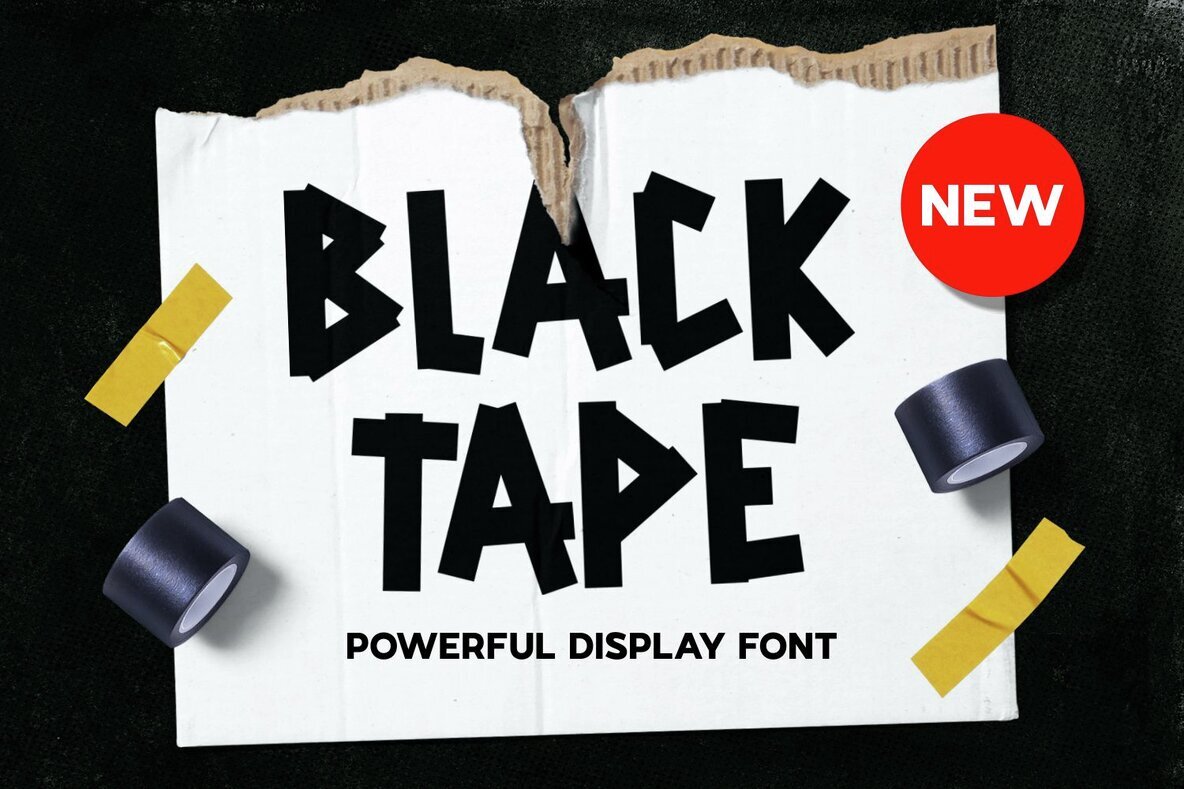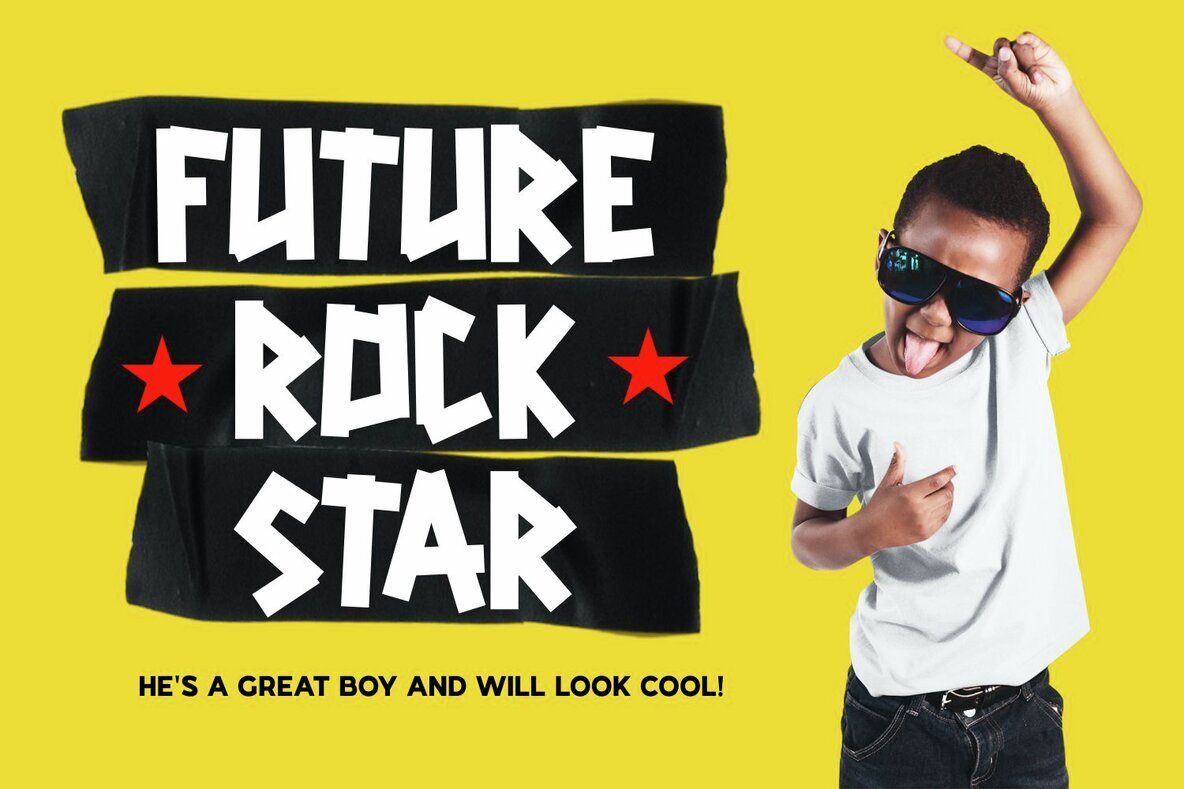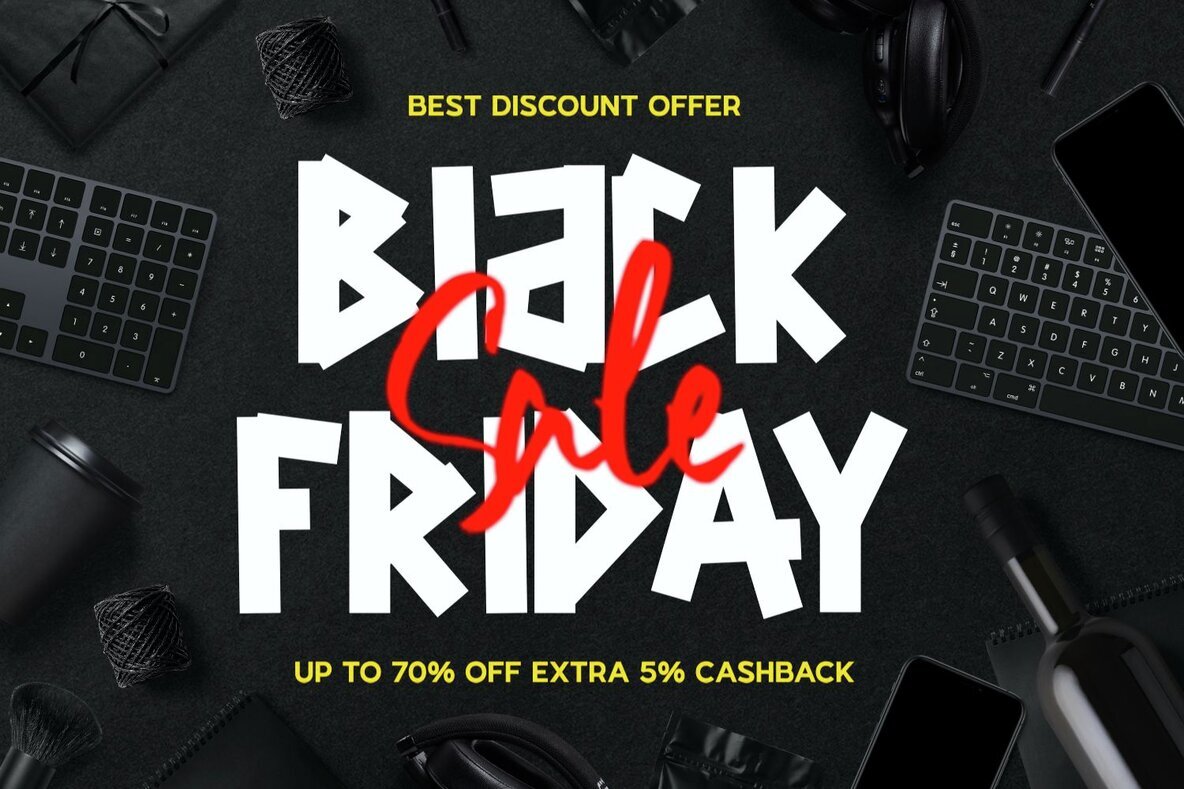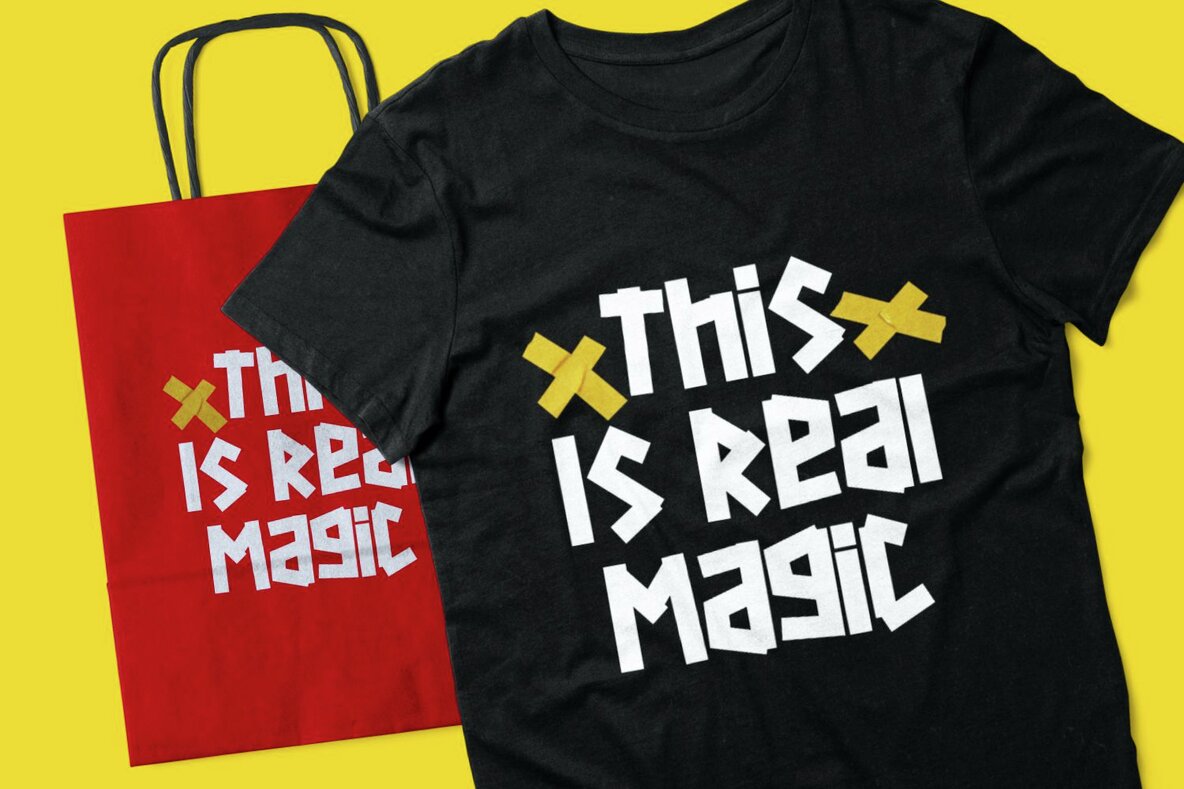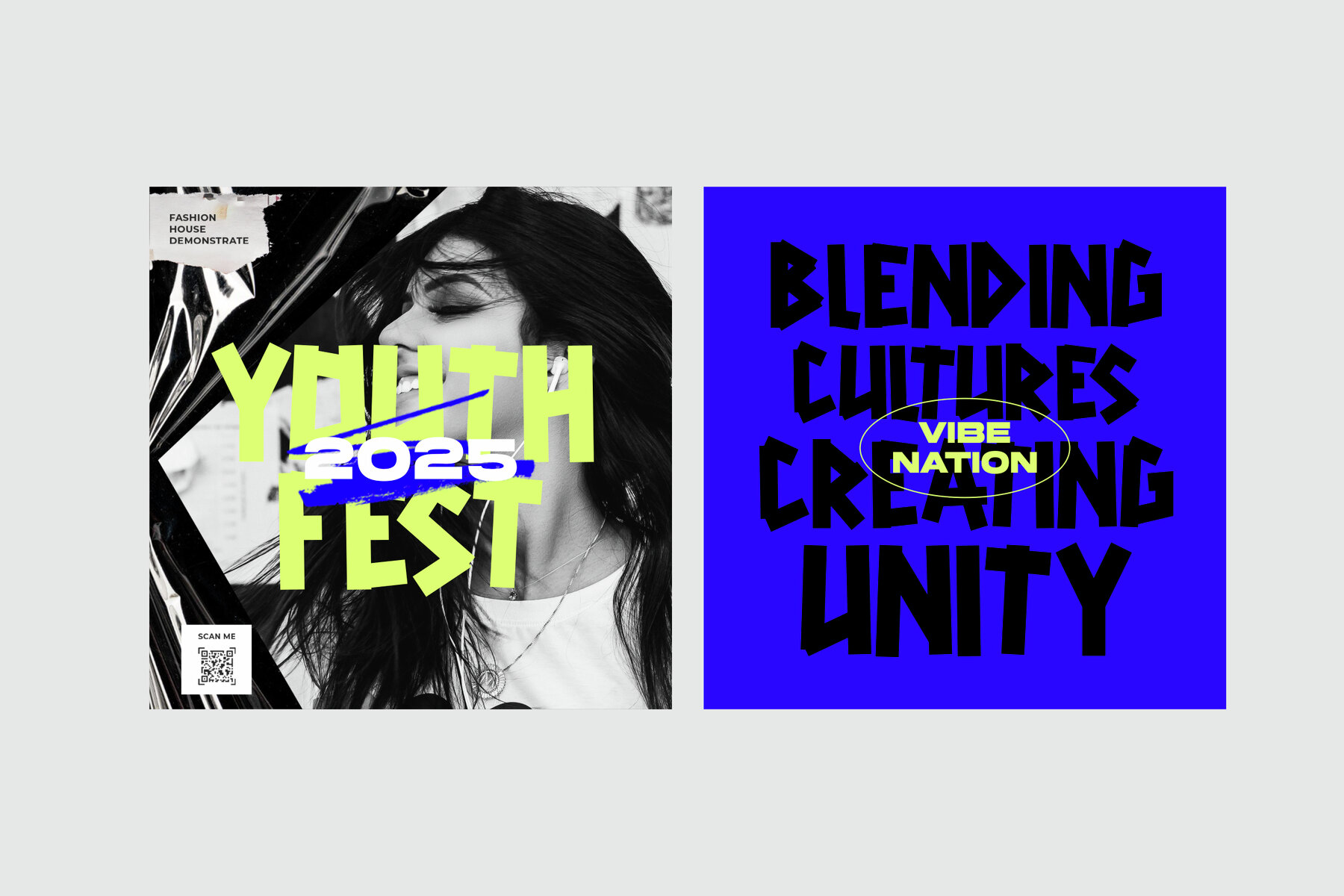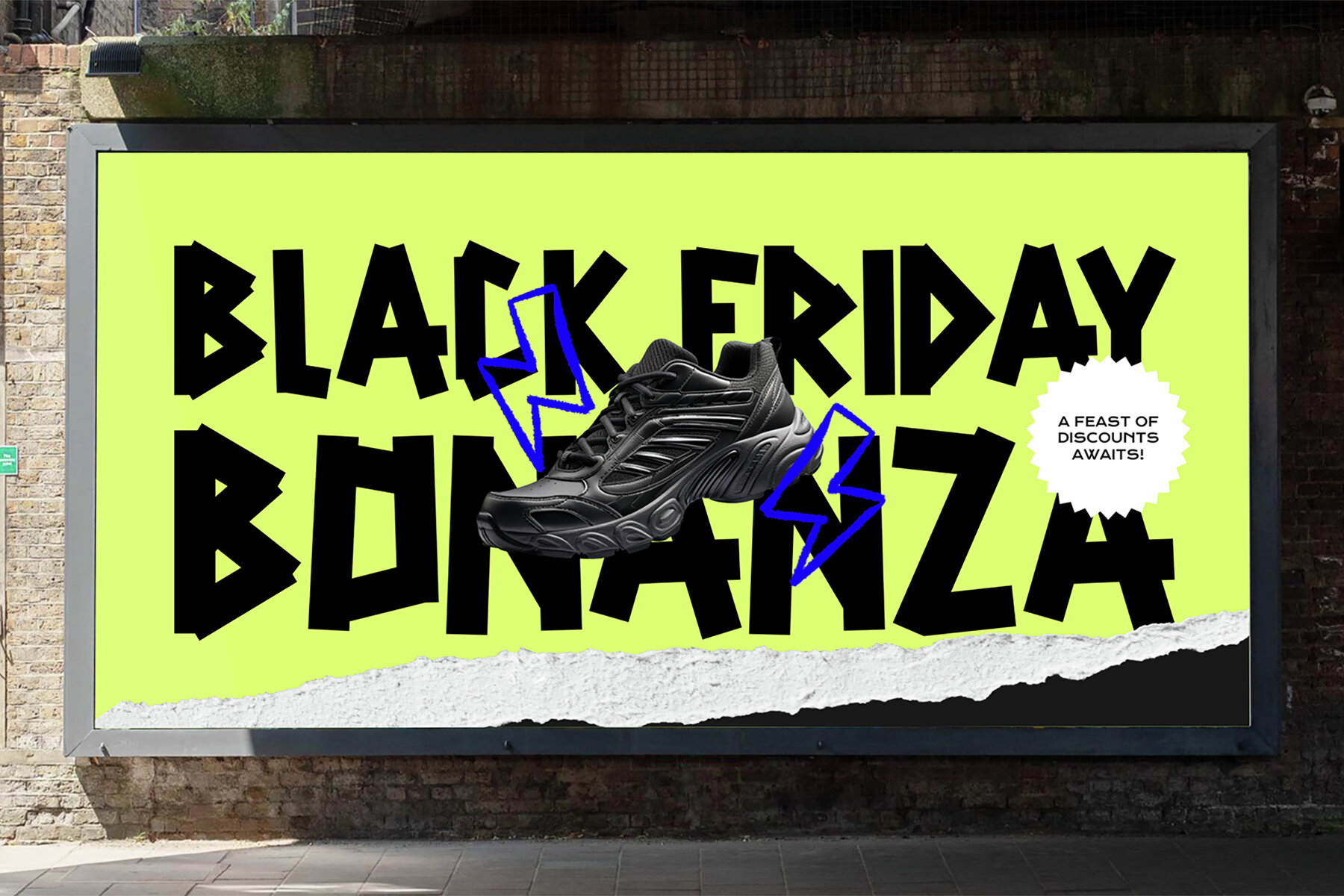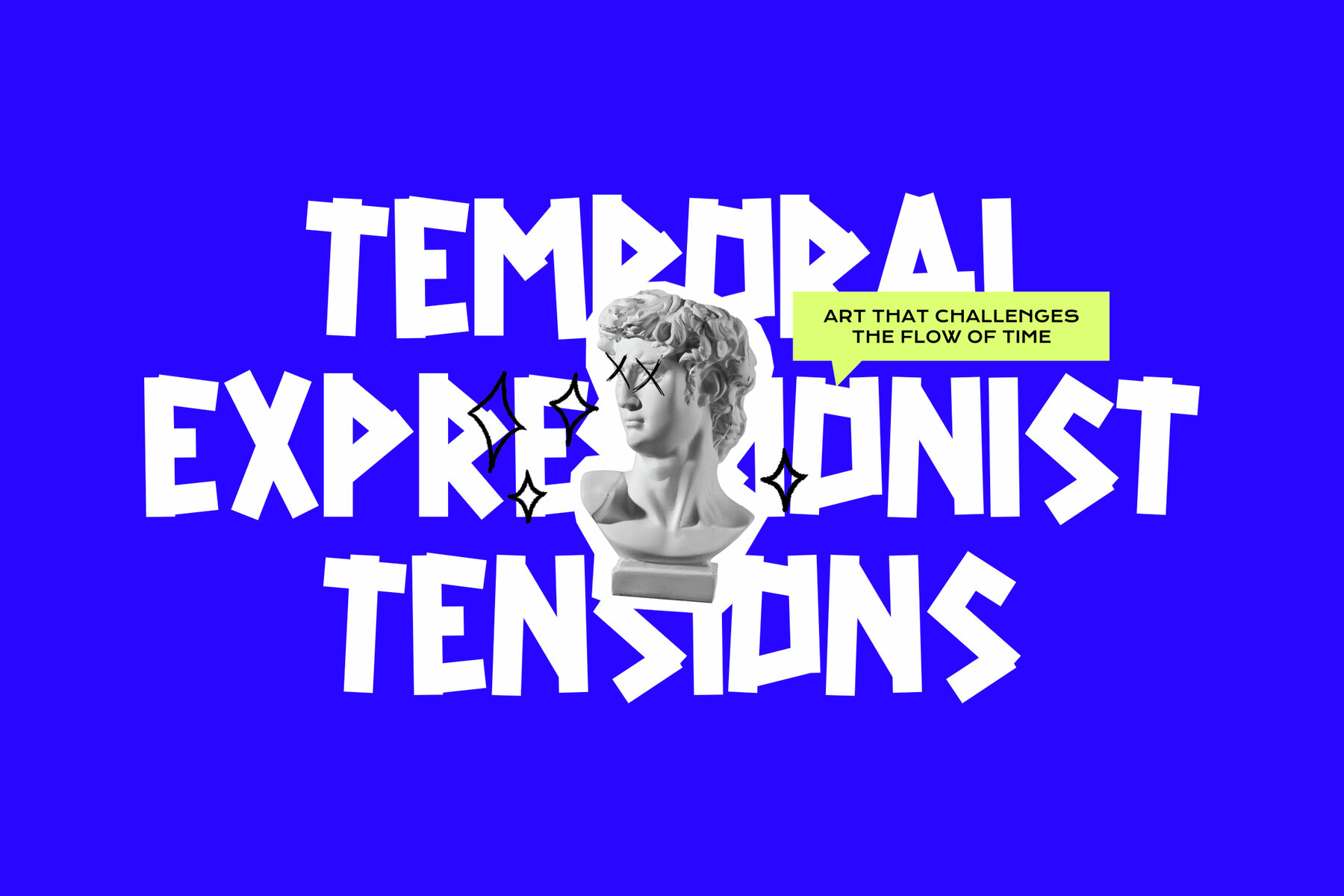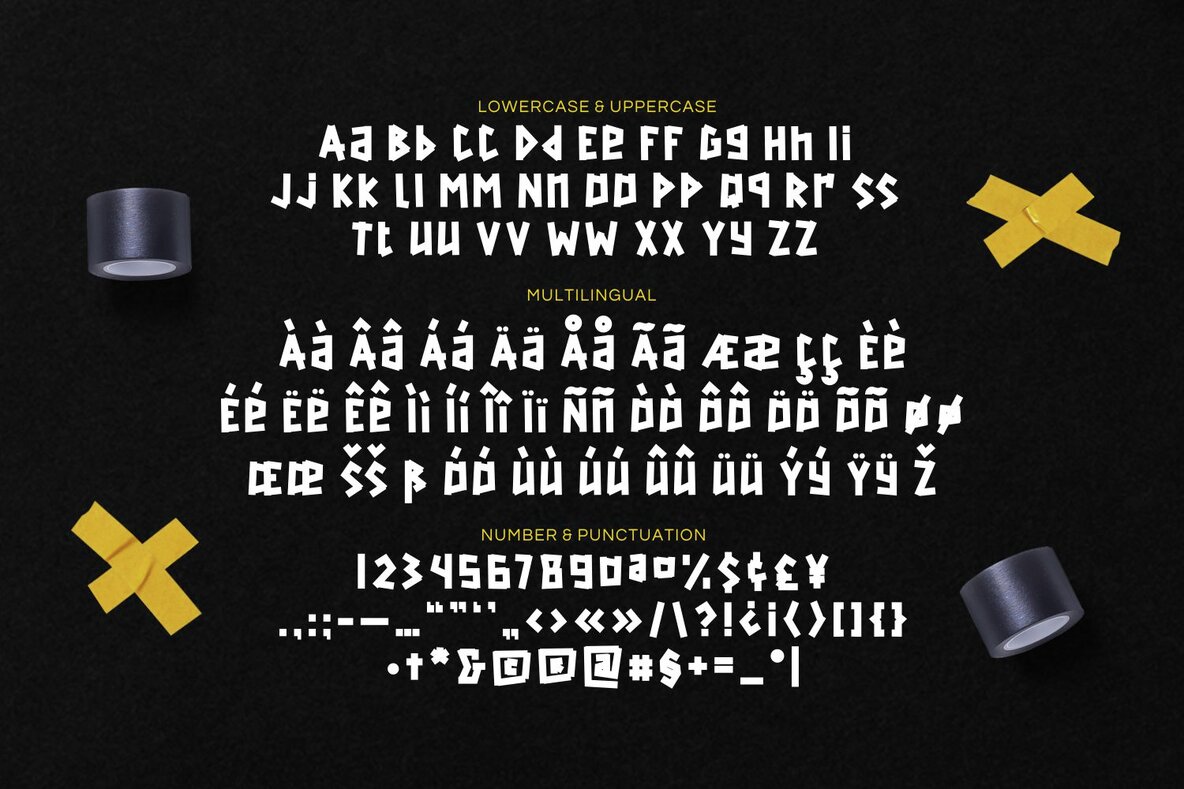
Blacktape Font
Blacktape Regular
The Blacktape display font delivers striking impact through its bold, rugged design. Inspired by the textured, imperfect look of cut gaffer and electrical tape, this typeface stands out with strong, chunky shapes and sharp, irregular edges. Each character carries a distinctive handcrafted quality, replicating the effect of letters sliced from tape. The all-caps style and variable baseline inject a sense of energy and movement, forming a font that demands attention. Designed for projects that call for bold visual statements, Blacktape adds a dynamic, urban edge wherever it's used. Its spontaneous, DIY feel makes it especially suited for: Choose Blacktape for memorable headlines and creative projects that resonate with a gritty, contemporary sensibility.Blacktape – Edgy Display Font with Raw Character